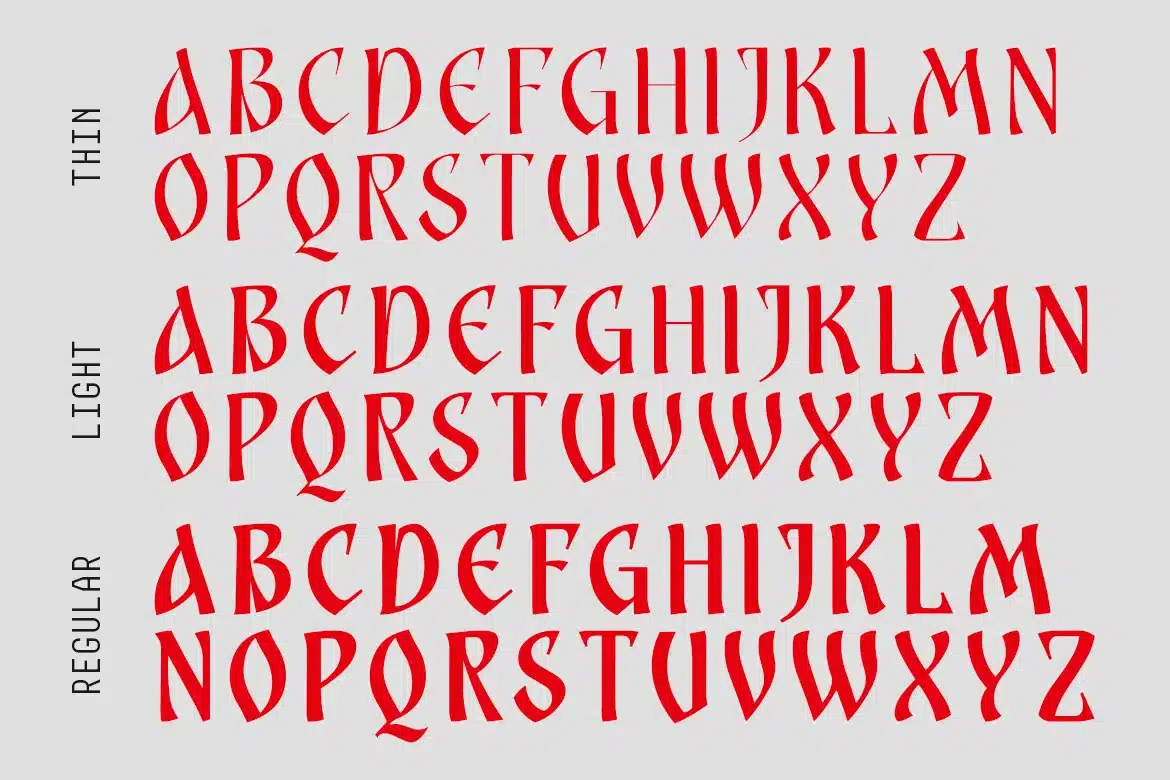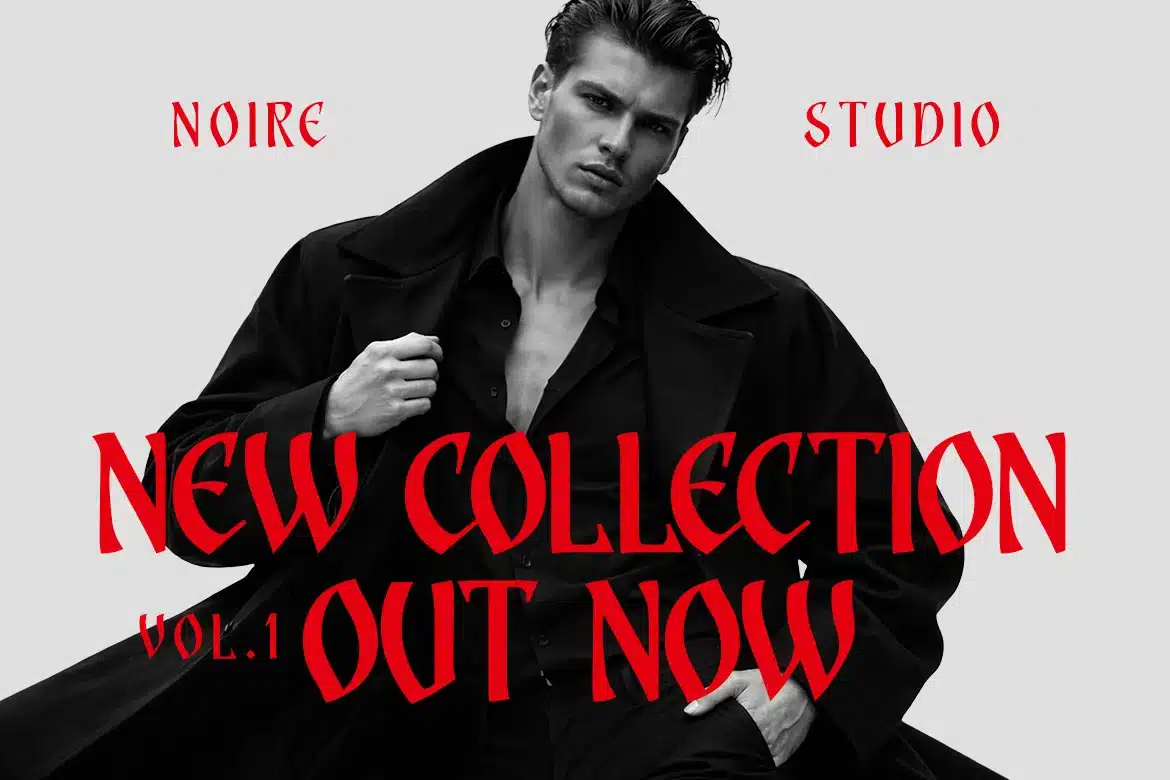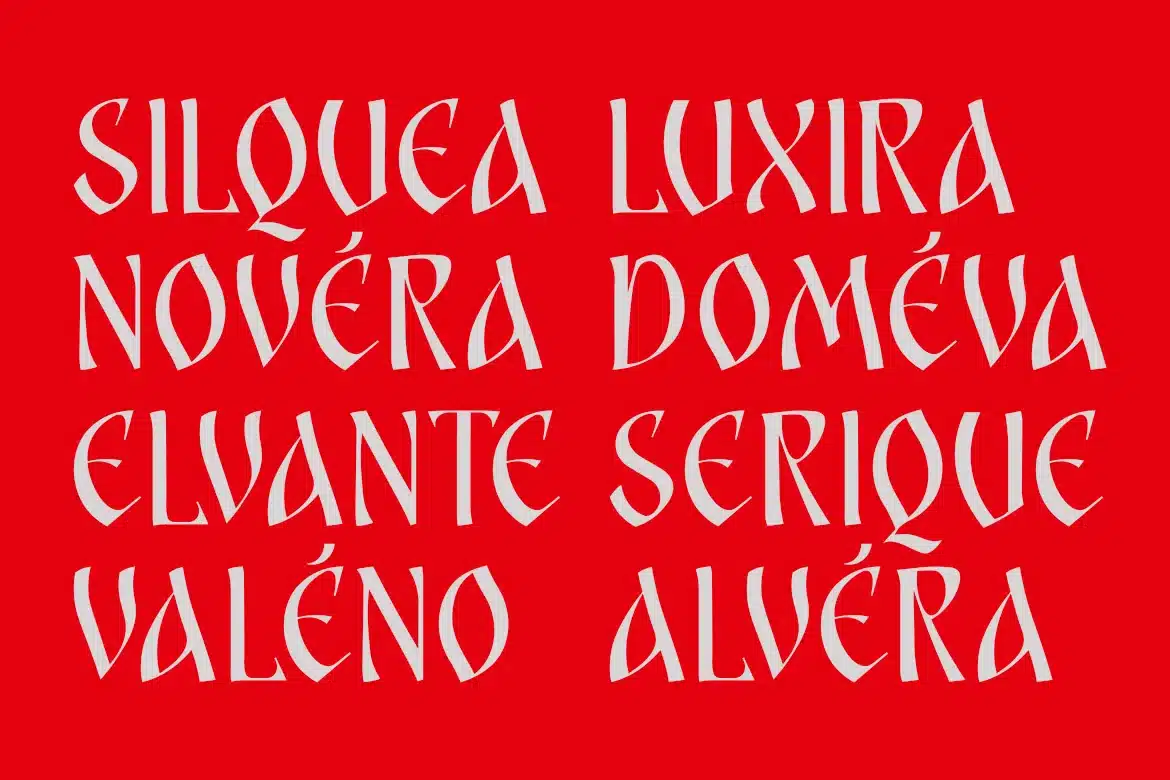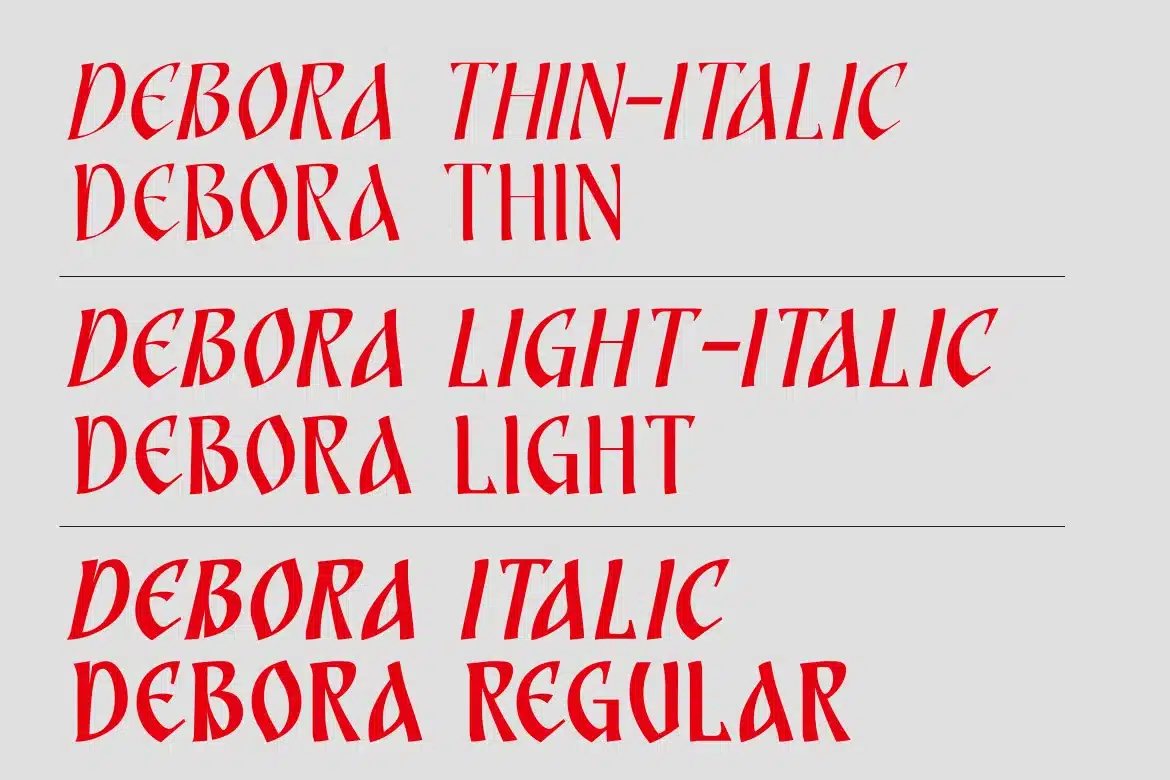
Debora Atelier – Elegant Fashion Serif Font
Debora Atelier Elegant Fashion Serif Font is a refined typeface designed with high-contrast strokes and graceful curves. Its sharp serifs and elegant proportions create a sophisticated visual style that feels luxurious, modern, and fashion-forward. The delicate balance between thin and bold elements gives it a premium editorial character.
Font Features:
- Uppercase Letters
- Numbers And Punctuation
- High Contrast Strokes
- Elegant Serif Details